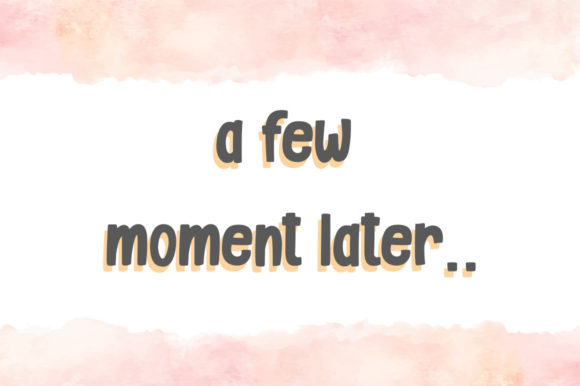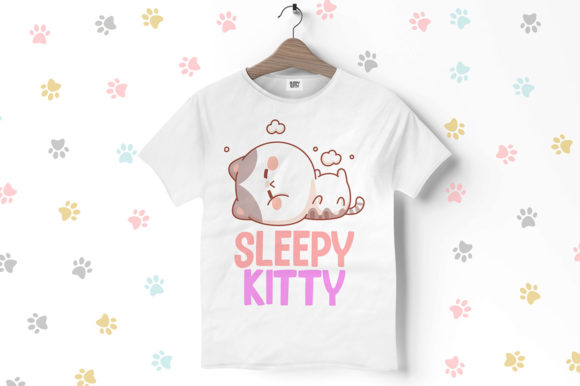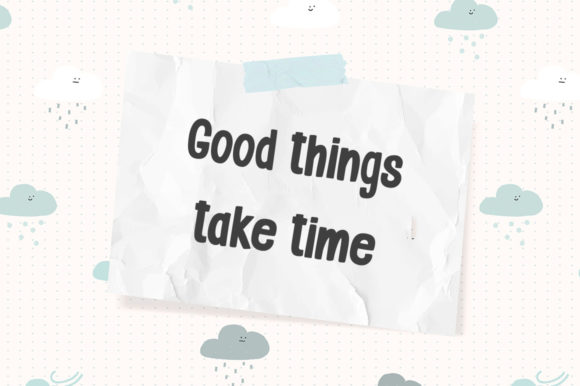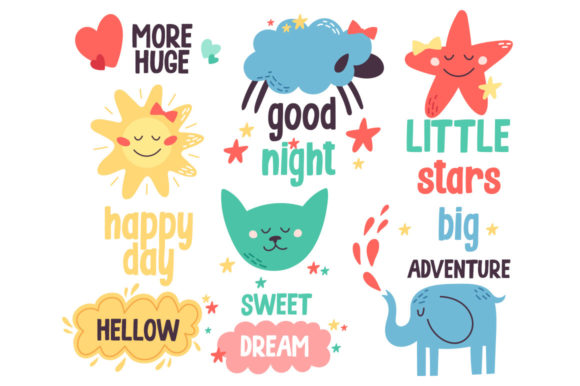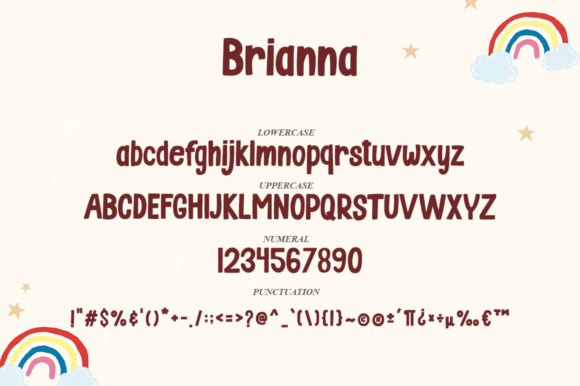
Brianna Font: The Perfect Choice for Chalkboard Quotes and Teaching Materials
Are you a designer or crafter looking for a font that can add a personal and realistic touch to your designs? Look no further than the Brianna font. This cute and simple-lettered display font is perfect for all chalkboard quotes and teaching materials, and its authentic look will make your designs stand out.
What is Brianna Font?
Brianna font is a display font designed to mimic the look of handwriting on a chalkboard. Its simple and cute lettering style makes it perfect for use in a variety of design projects, from chalkboard quotes to teaching materials, posters, and more. The font’s authentic look and feel will add a personal touch to your designs, making them more engaging and relatable to your audience.
Key Features of Brianna Font
- Cute and Simple Lettering Style: The Brianna font features a cute and simple lettering style that is reminiscent of handwriting on a chalkboard.
- Authentic Look: The font’s authentic look will add a personal and realistic feel to your designs, making them more engaging and relatable to your audience.
- Perfect for Chalkboard Quotes: The Brianna font is perfect for use in chalkboard quotes, teaching materials, and other design projects where a personal and realistic touch is desired.
- Easy to Read: The font is easy to read, making it perfect for use in teaching materials and other design projects where legibility is important.
Uses of Brianna Font
The Brianna font can be used in a variety of design projects, including:
- Chalkboard Quotes: The font is perfect for use in chalkboard quotes, adding a personal and realistic touch to your designs.
- Teaching Materials: The font is easy to read and can be used in teaching materials, such as worksheets, posters, and presentations.
- Posters and Flyers: The font can be used in posters and flyers to add a personal and eye-catching touch.
- Social Media Graphics: The font can be used in social media graphics to add a personal and engaging touch.
Tips for Using Brianna Font
Here are some tips for using the Brianna font in your design projects:
- Use it with Chalkboard Backgrounds: The Brianna font looks great with chalkboard backgrounds, adding a personal and realistic touch to your designs.
- Experiment with Colors: The font can be used with a variety of colors, so experiment with different colors to find the one that works best for your design.
- Use it in Combination with Other Fonts: The Brianna font can be used in combination with other fonts to add visual interest to your designs.
The Brianna font is a great choice for designers and crafters looking for a font that can add a personal and realistic touch to their designs. Its cute and simple lettering style, authentic look, and ease of use make it perfect for use in chalkboard quotes, teaching materials, and other design projects. With its versatility and flexibility, the Brianna font is a great addition to any designer’s toolkit.